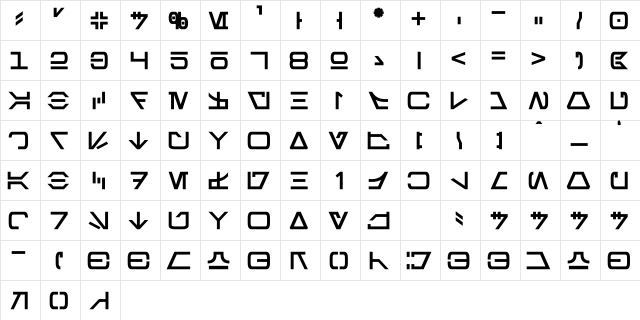
Aurebesh Regular
| Designer | Neale Davidson |
Design Context for Aurebesh Typeface
Aurebesh is a composed and adaptable typeface that performs quietly and consistently across a wide range of design contexts.